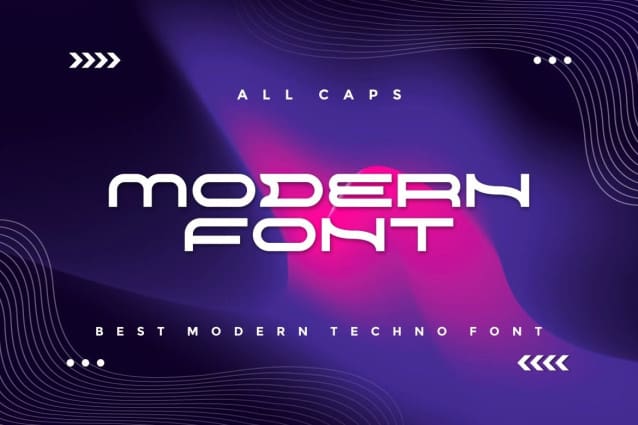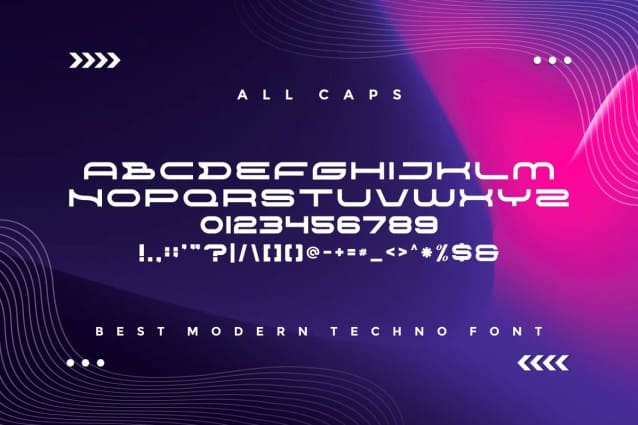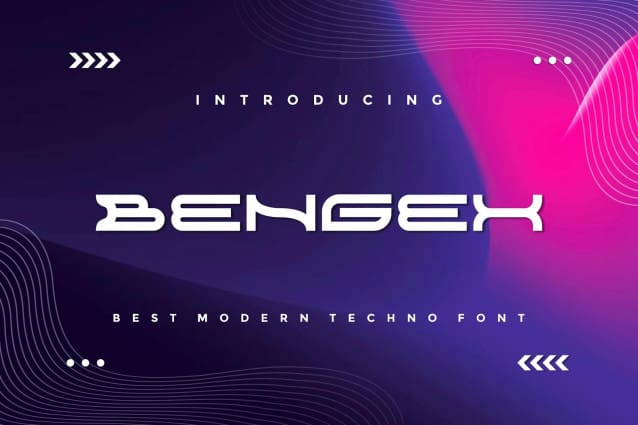
Bengex Techno Font
Bengex Techno Font is a modern, bold display font with a playful style, ideal for attention-grabbing headlines, Logos and various design projects. Versatile and readable both digitally and in print, Bengex brings a dynamic touch to your message